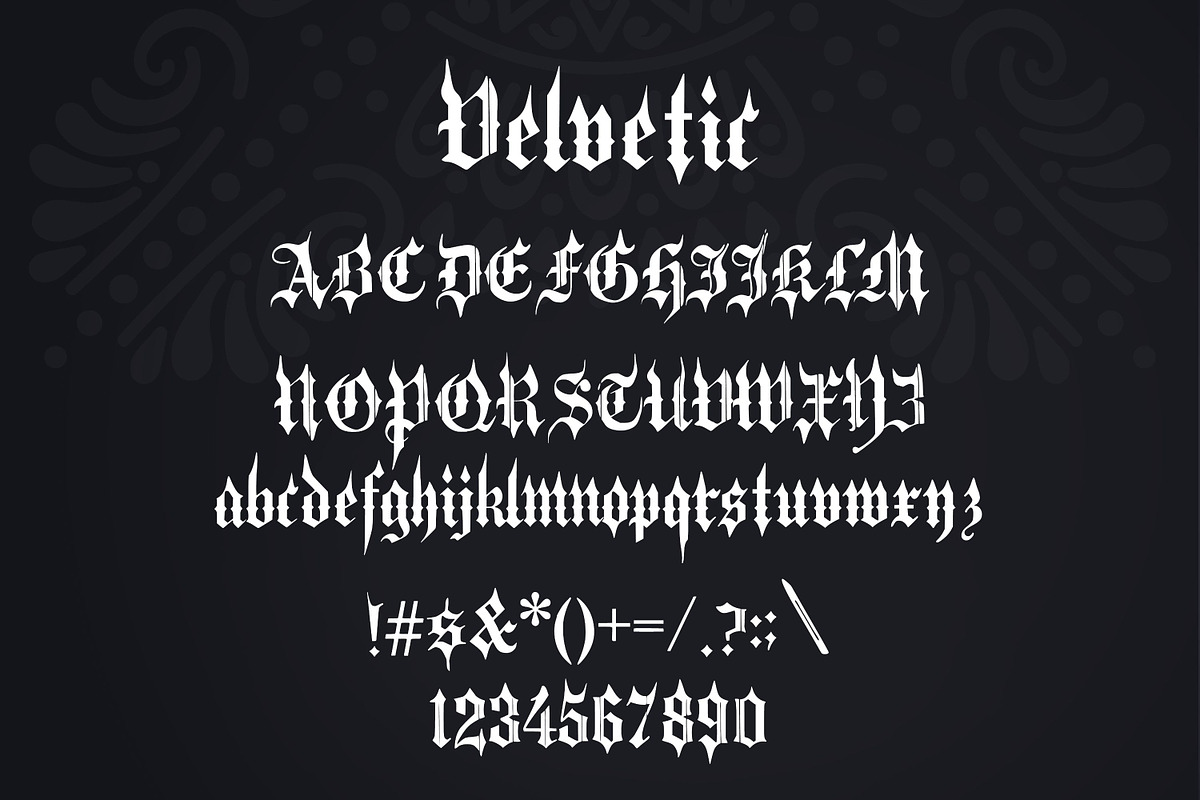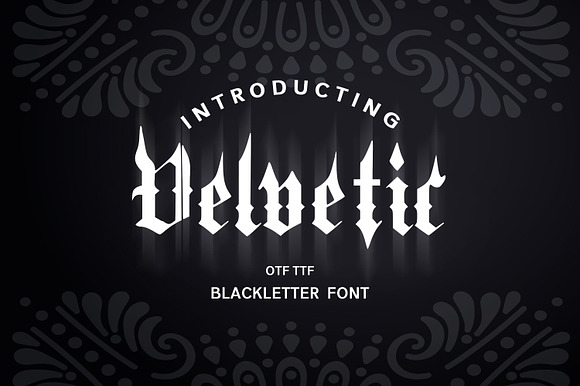
Velvetic Blackletter Font
Velvetic Blackletter Font by DmDesignsStoreArt is a font selected for branding, posters, packaging, typography.
Velvetic Blackletter Font by DmDesignsStoreArt fits naturally into Branding, posters, packaging, typography.